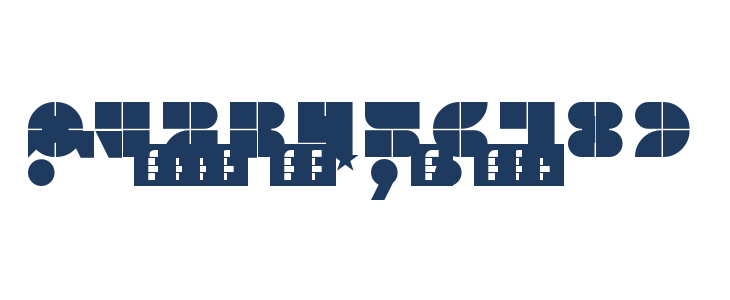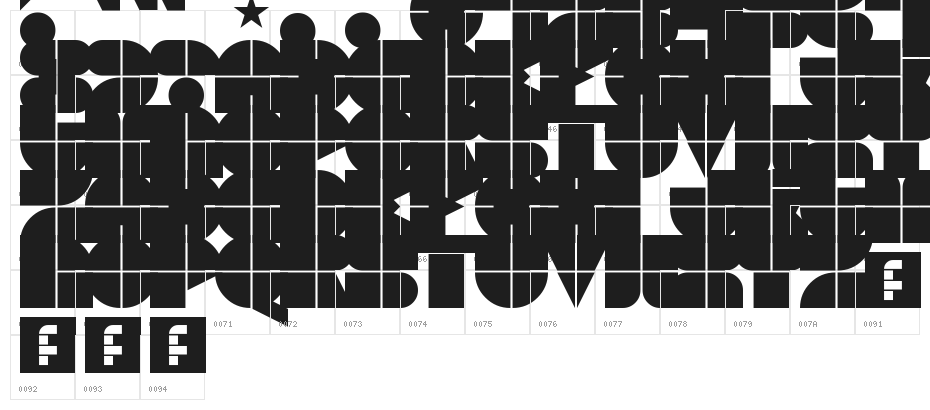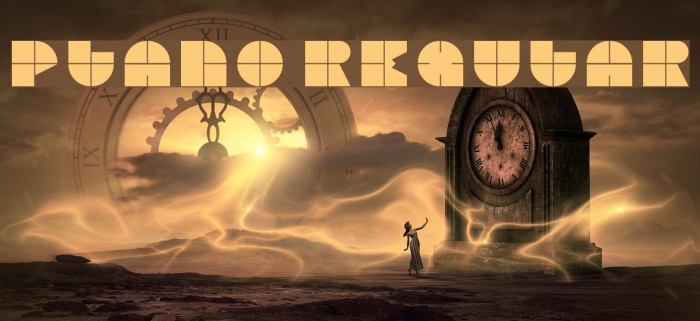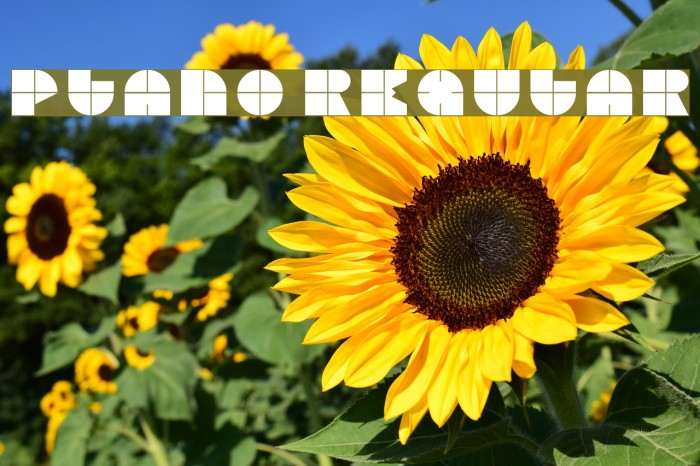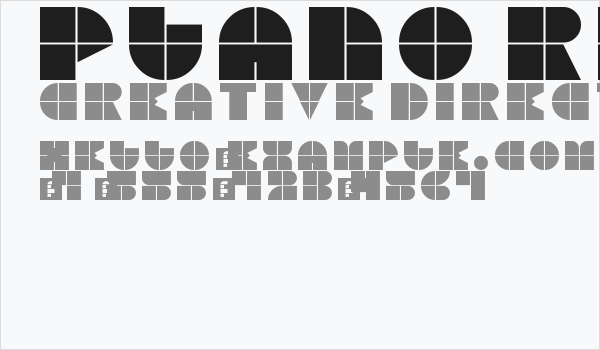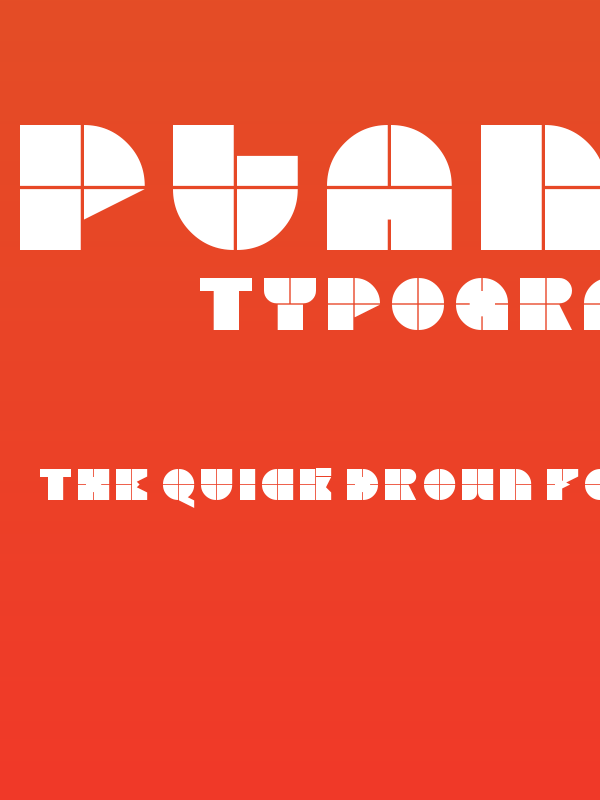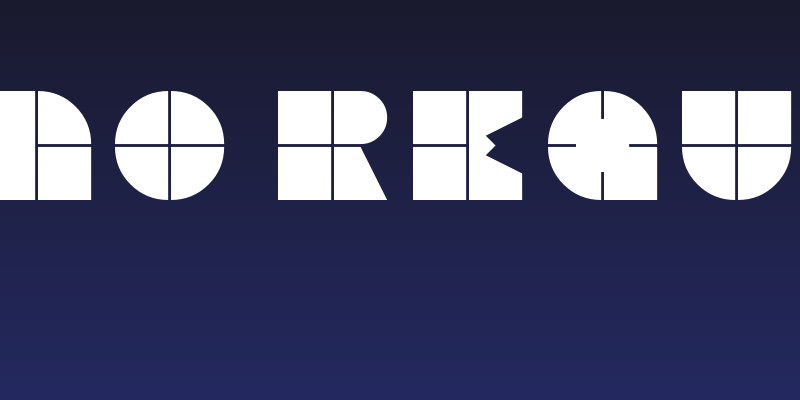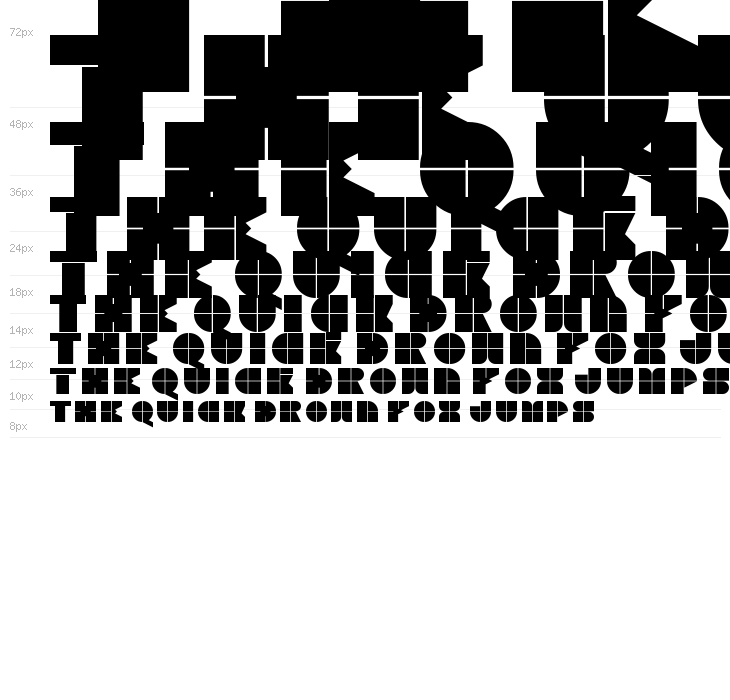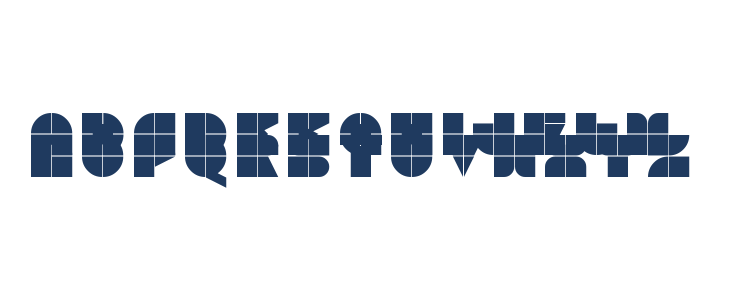
Plano Regular Font
Plano Regular Description
This font features a bold and geometric design, characterized by its use of solid, block-like shapes to form each letter. The characters are constructed with a combination of straight lines and curves, creating a modern and futuristic appearance. The font's unique style is evident in its symmetrical and angular elements, which give it a distinctive and eye-catching look. The uppercase letters are particularly striking, with their strong presence and uniformity. The numbers and special characters maintain the same geometric theme, ensuring consistency throughout the font.
A bold, geometric font with a modern and futuristic style from Uncategorized fonts.
- Proposed Projects: Ideal for branding, posters, and digital media where a strong, modern aesthetic is desired.